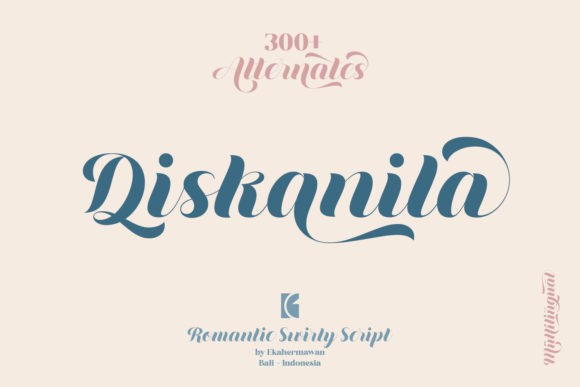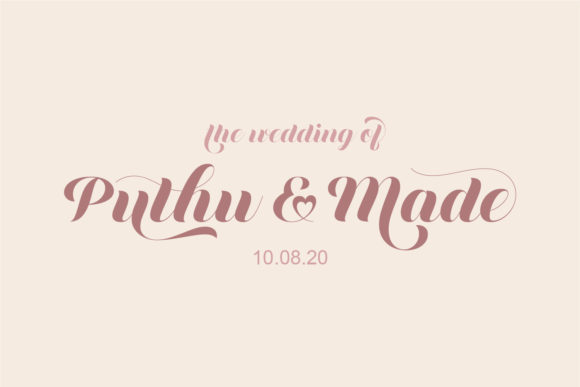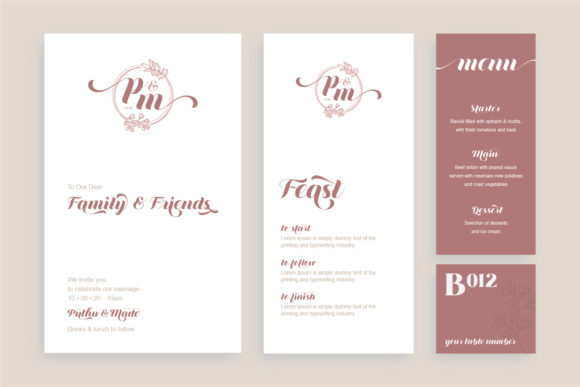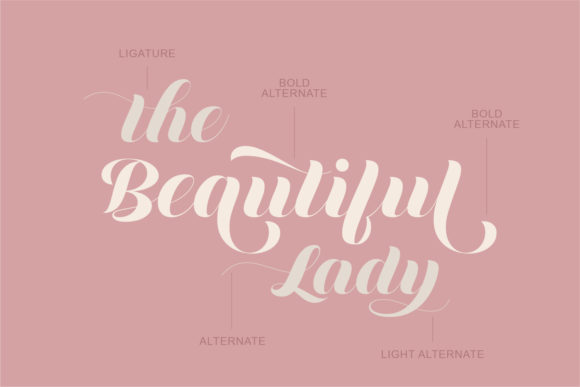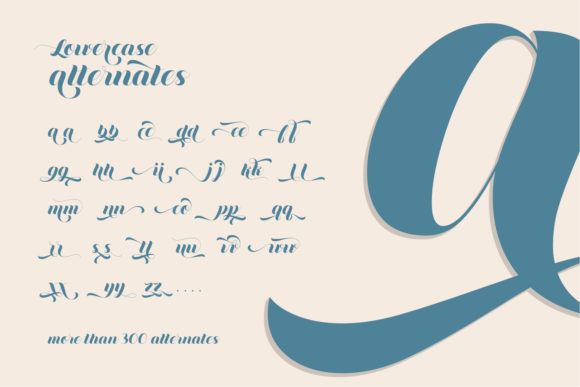
About Diskanila Font
Diskanila is a romantic, swirly handwritten font. It looks stunning on wedding invitations, thank you cards, quotes, greeting cards, logos, business cards and every other design which needs a handwritten touch. This font is PUA encoded which means you can access all of the glyphs and swashes with ease!